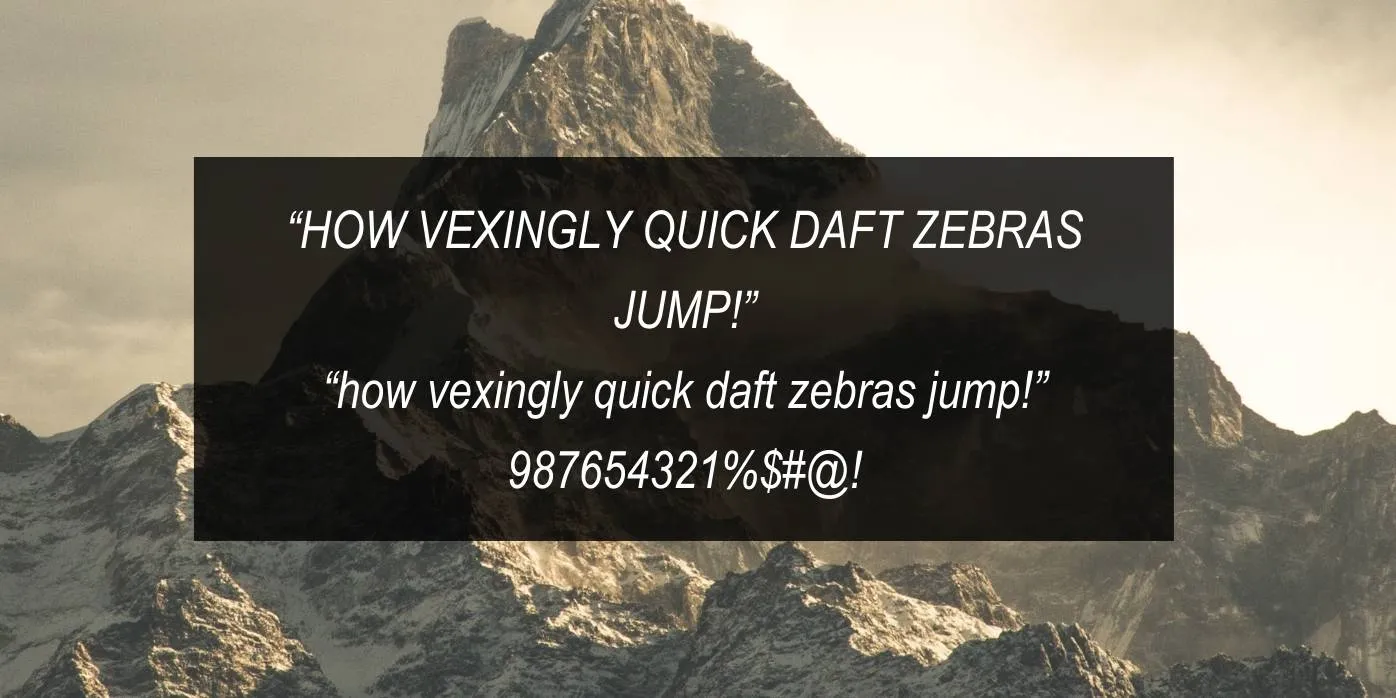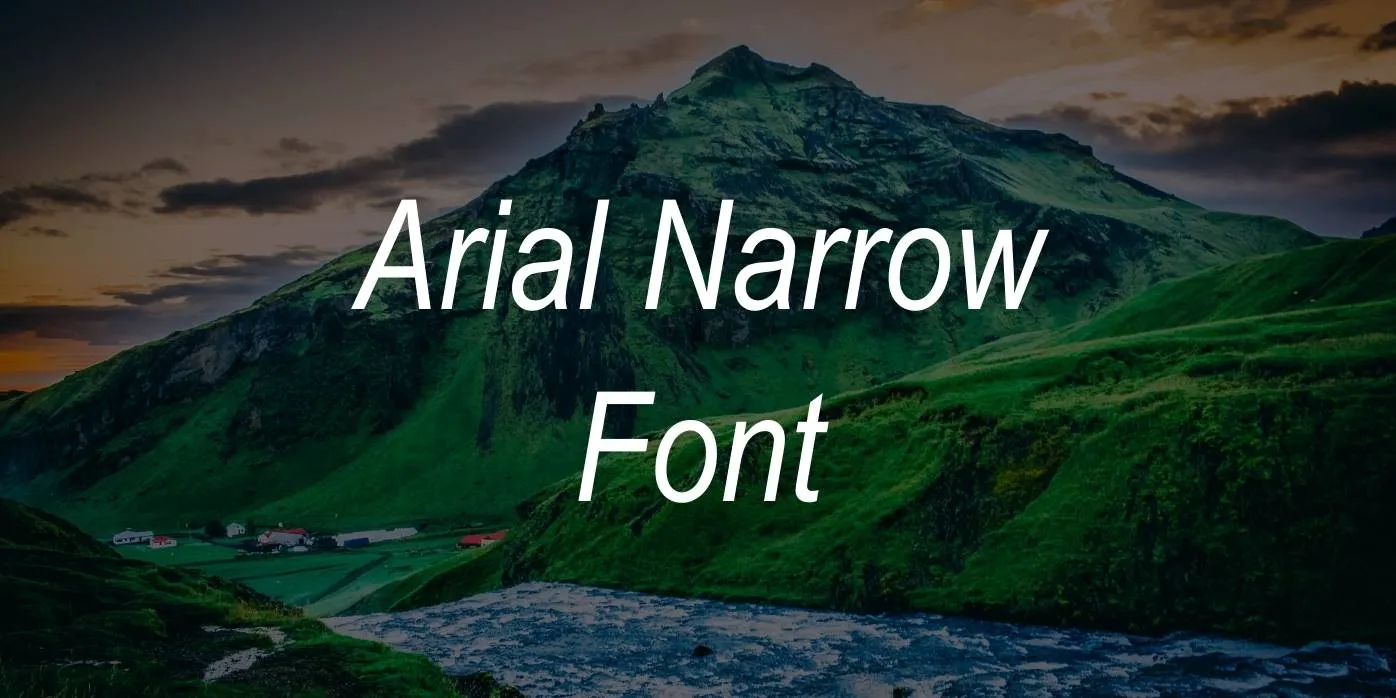
Arial Narrow Font
Arial Narrow Font family belongs to the sans serif typeface. This classy typeface was created by two designers named Robin Nicholas, and Patricia Saunders. This amazing font was first released in the year 1982. This font is a variation of the original Arial typeface.
It belongs to the sans serif family and it is a more condensed version of the regular Arial font. This stunning font is widely used by graphic designers and web developers all over the world. If you are looking for a sans serif typeface that is both classy and stylish, then the Arial Narrow Typeface is the perfect choice for all of your projects.  It is best for Windows 10. You can also use this typeface for Canva.